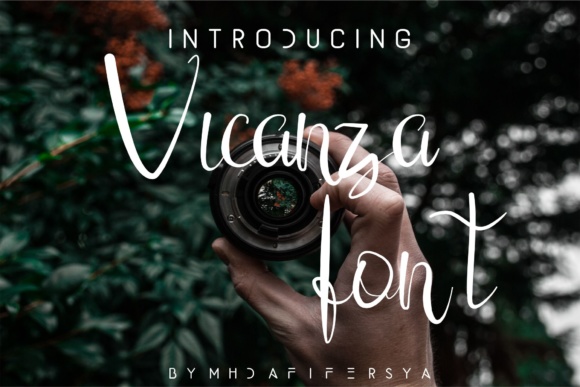
Vicanza Font
Unleash the Allure of Vicanza: A Script Font That Weaves Enchantment into Your Designs
In the realm of typography, Vicanza emerges as a captivating script font, a true masterpiece crafted by the visionary minds at Lettercorner Studio. Its essence lies in the intricate dance of its elegant, curly letters, each stroke imbued with a timeless charm that elevates your designs to new heights of sophistication.
Vicanza isn't merely a font; it's an invitation to embark on a creative odyssey, where the boundaries of your imagination are the only limits. Its versatility knows no bounds, seamlessly adapting to a myriad of design styles, from the delicate allure of wedding invitations to the bold statements of branding campaigns. With Vicanza, your words will sing with a melodic grace, captivating your audience and leaving an indelible mark on their hearts.
Immerse yourself in the world of Vicanza, and let its allure inspire you to create designs that radiate elegance and timeless beauty. Let your imagination soar, and let Vicanza be your trusted companion on this creative journey. Whether you're a seasoned designer or just starting your typographic exploration, Vicanza is the key to unlocking a world of endless possibilities.
So, embrace the artistry of Vicanza, and let its enchanting script transform your designs into captivating masterpieces. Experience the magic of Vicanza today, and embark on a creative journey that will leave you spellbound.